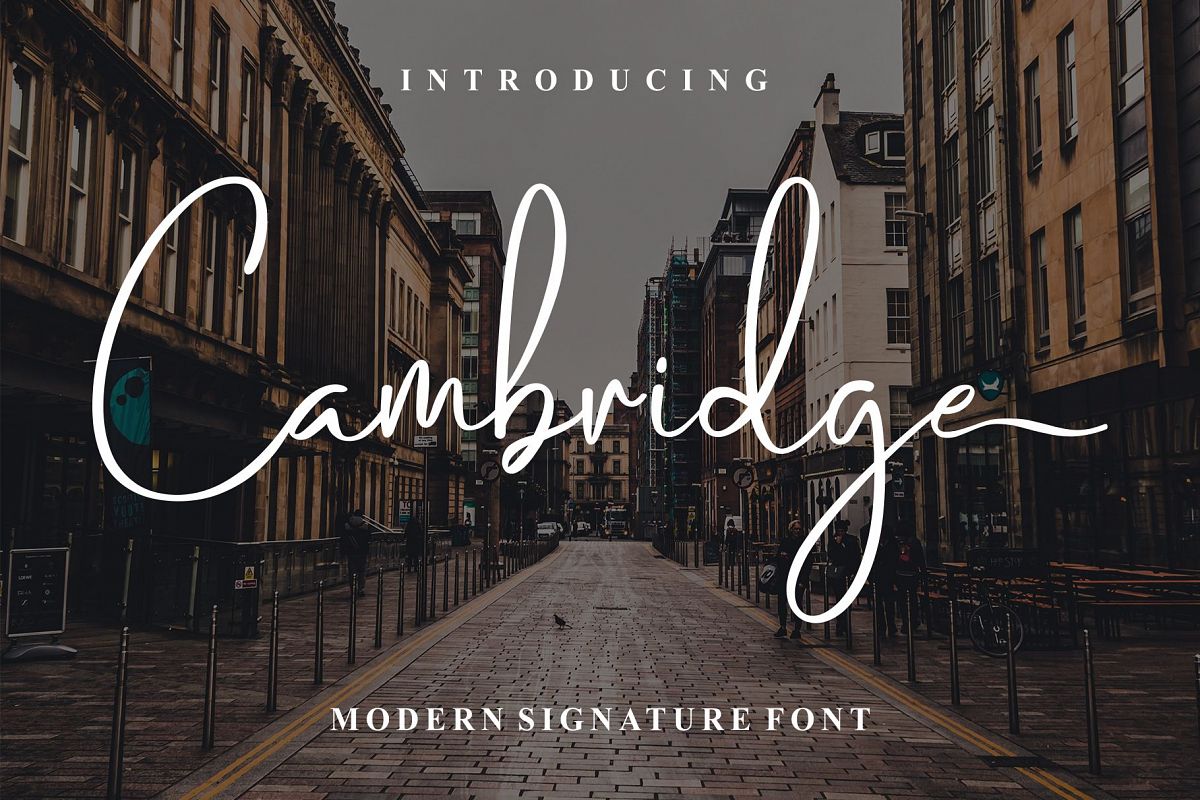
Cambridge Modern Signature
Cambridge is a naturally modern signature font. It’s perfect for signature logos, quotes, packaging, fashion, wedding invitations or any business that wants to look perfectly modern and elegant.